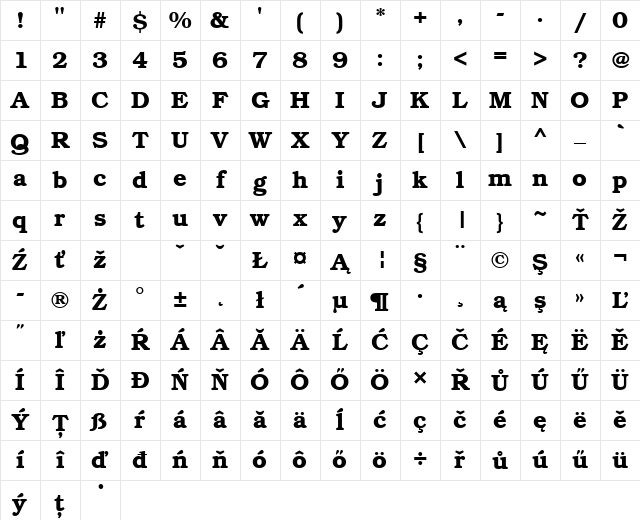
BookmanItcLEE Bold
BookmanItcLEE Family
BookmanItcLEE Bold
Complete BookmanItcLEE Bold glyph index. Displaying only characters natively supported by BookmanItcLEE Bold font.
Design Context for BookmanItcLEE
BookmanItcLEE is a composed and adaptable typeface that performs quietly and consistently across a wide range of design contexts. Its bold stroke weight gives it real presence on the page.